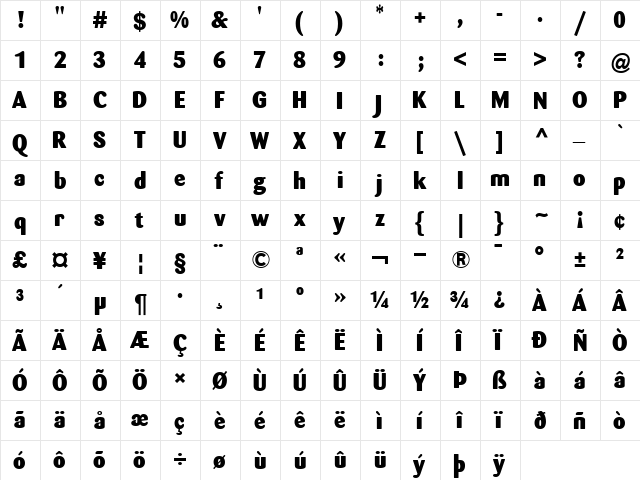
Barmeno Regular
Design Context for Barmeno Typeface
Barmeno takes a measured approach to typography — its balanced proportions and neutral character make it a reliable workhorse for both digital and print work.